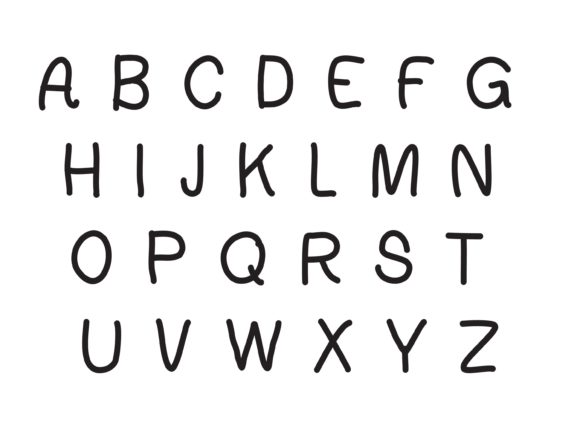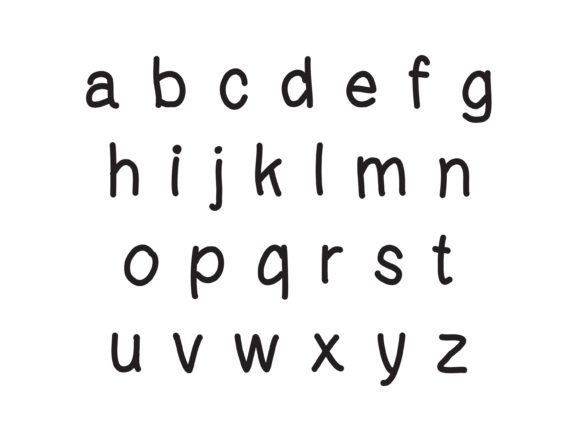
Xexxy Font
db-ku.com - Script & Handwritten -- Xexxy is a simple and neat handwritten font that looks relaxed and friendly. It is suitable for informal text, quotes on products, like mugs or shirts.